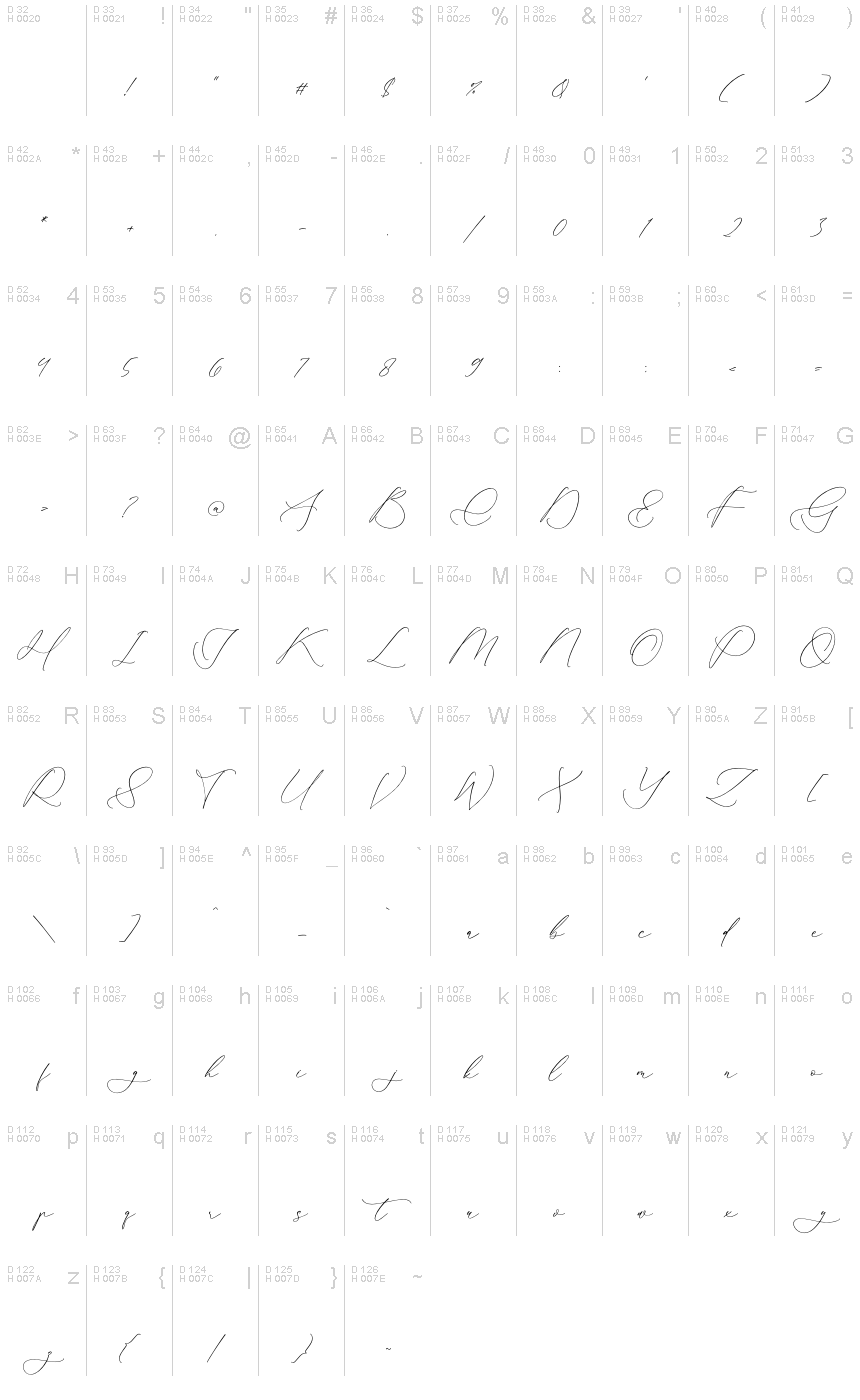
Glofester Menditas
Glofester Menditas font by Storytype Studio exudes an enchanting charm with its elegant calligraphy style and light weight. This free font captures the essence of fluid handwriting, characterized by graceful, sweeping strokes and delicate curves that evoke sophistication and creativity. Perfect for adding a personal touch to wedding invitations, branding projects, or any design that requires a hint of elegance, Glofester Menditas stands out with its artistic flair.